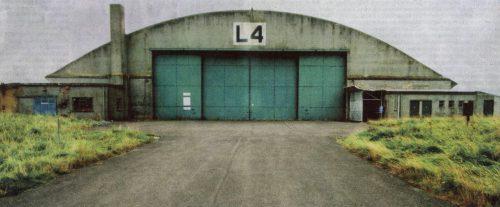
The Monotype Collection: A Brief History - video
This new video, produced by the UK's Science Museum, tells the history of the Monotype Company and then goes on to the subject of preservation, and the Monotype Collection.
Towards the end of the video it is explained that the Monotype Collection has returned to the Science Museum following being loaned out to the Type Archive, and that the collection is now housed in "the national collection centre in Wiltshire."
I wonder if that means it is now stored in this ex-WWII aircraft hangar, as previously featured on Metal Type:
Wood Press, RAF Wroughton.
Enjoy this great, new, 18-minute video: